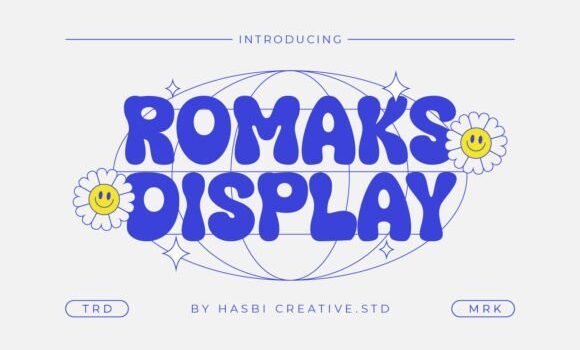
romaks
Romaks Font – Free Download Introduction to Romaks Font Embrace the captivating charm of the past with Romaks Display, a retro display font that seamlessly blends vintage aesthetics with modern sensibilities. 📸 Preview Gallery 6 images 📌 Product Name Romaks